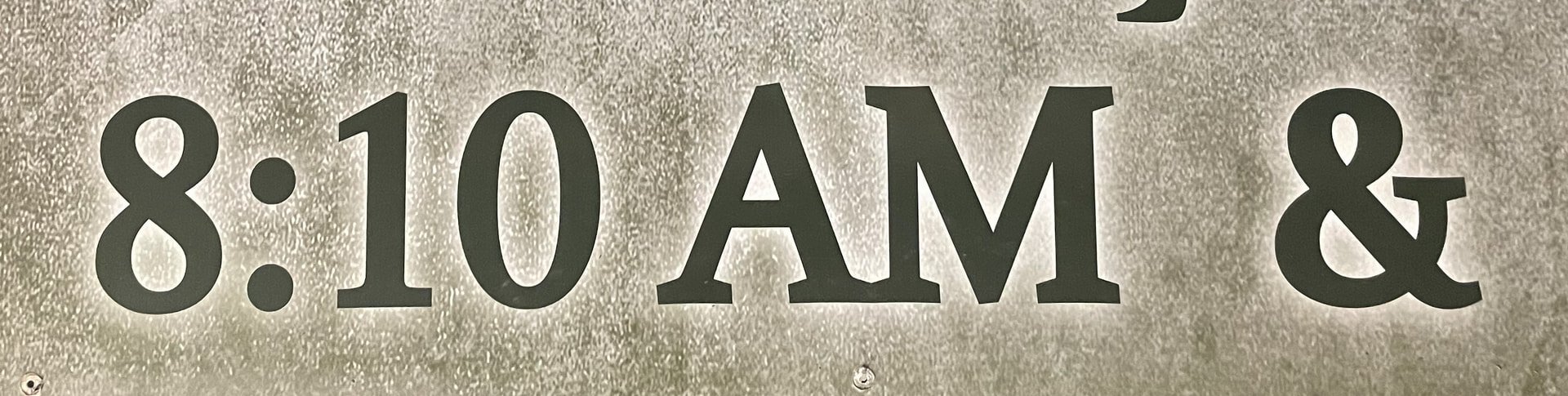
I’ve been tasked with updating the start times on a local church’s sign. Original signmaker has passed away. I thought I knew what this was, but I was mistaken. All the fonts I have do not make that sharp of an angle on the serif.
I’ve been looking for a font like that. The closest match I found is called Melancholy Serif. Anyway, there is a website with a font identifier tool you can check out here:
Professional sign makers often use fonts and software packages tailored to their specific needs and equipment. Many of those fonts are unavailable elsewhere. I’m not saying this is one of them, but it could be.
Clarendon would probably work.
Joanna is close
Another vote for Clarendon here. The sharp pointed apex on the A and the bracketed slab serifs on the M are textbook Clarendon DNA, and that distinctive ampersand shape lines up with the family too. Joanna feels a bit too soft and humanist for this one — the angles on your sign are noticeably sharper than Joanna’s. If a straight Clarendon doesn’t match exactly, check the bold or condensed cuts as well, since sign shops tend to favor those for channel letters.
It is very flexible in fancy design stuffs. If plain old kerning and leading and such don’t make it fit where you want it, it is extremely forgiving when using free transform. A lot of fonts end up looking wrong if using free transform, especially if styles are applied. Clarendon handles it very well, and it does look like a good choice for your project - especially if the client is not insisting you match the font exactly.